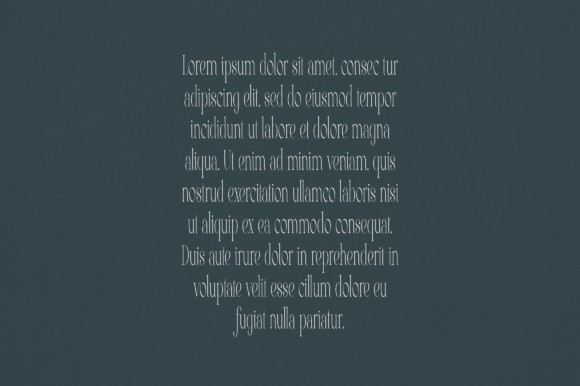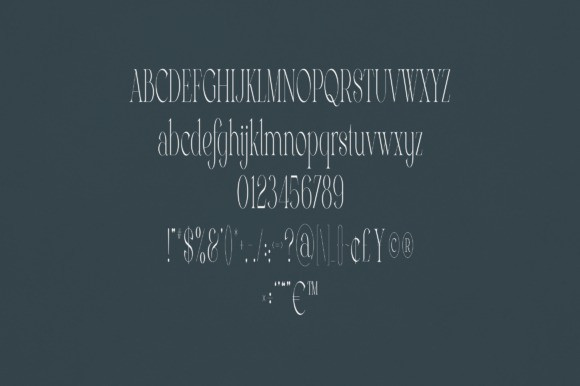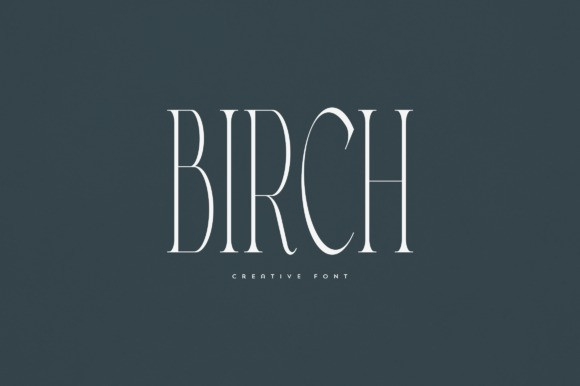
Birch Font
Birch Font is an elegant and versatile font that will make your typography truly unique! It will enchant every logo, branding, headline, or plain text!